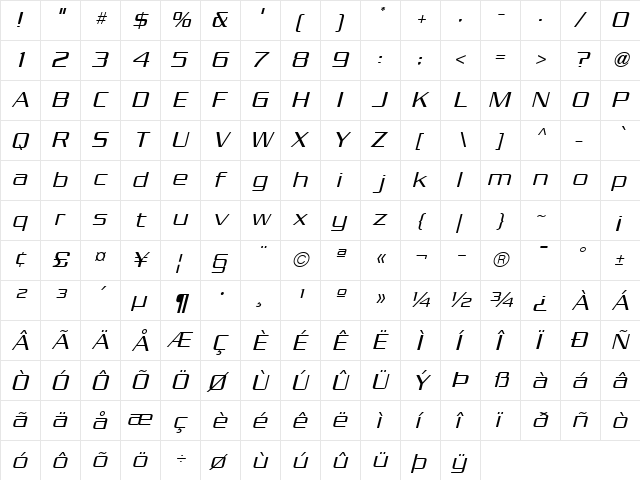
Serpentine Sans ICG LightOblique Font Preview
Serpentine Sans ICG LightOblique
Design Context for Serpentine Sans ICG Typeface
Serpentine Sans ICG is a composed and adaptable typeface that performs quietly and consistently across a wide range of design contexts. The slanted form adds forward momentum and visual energy. The delicate stroke weight brings airiness and refinement to layouts.